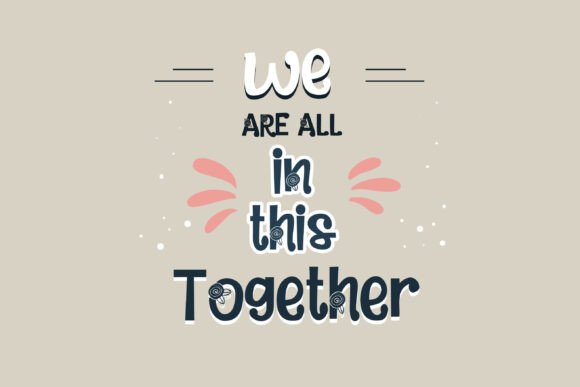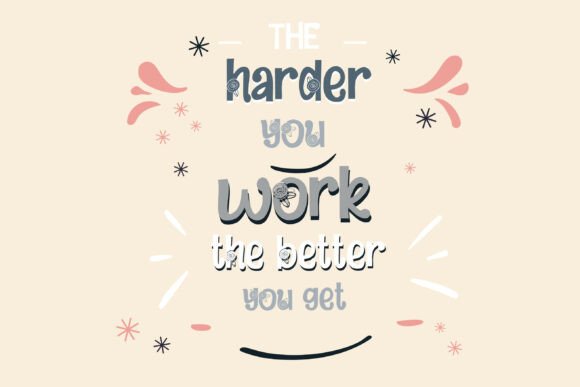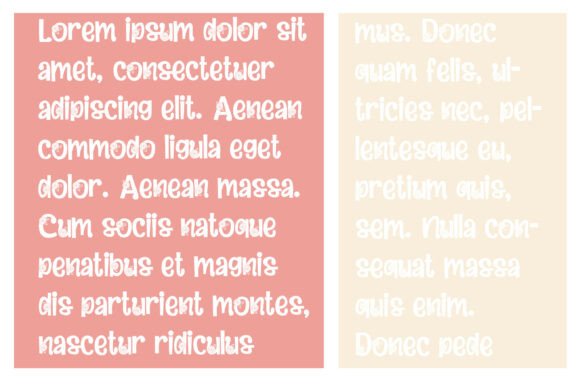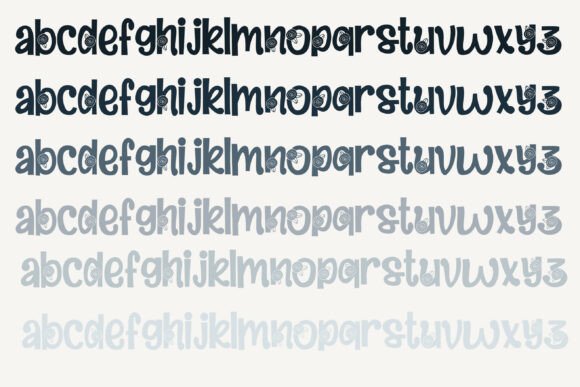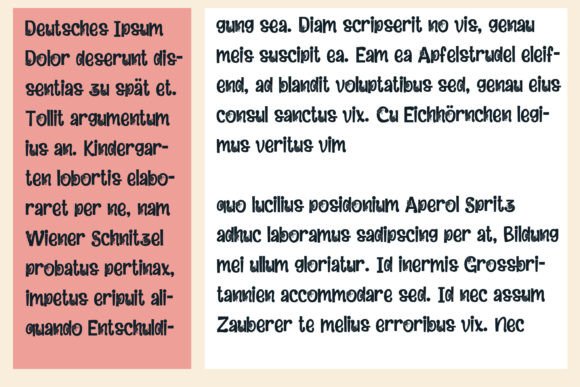
Have you ever stumbled upon a vintage flower market on a lazy Sunday afternoon, surrounded by the sweet scent of blooming roses and the soft hum of conversation? For many creatives, moments like these spark inspiration and guide their design choices. As you envision the perfect typography to match the charm of your brand, one font stands out – Carpet Roses Family Font.
This delightful “floral font” combines the elegance of hand-drawn sans-serif with the playfulness of internal rose-bud motifs. The result is a cozy-boutique aesthetic that invites approachability, artisanal charm, and a warm sense of heart. Whether you’re designing a boutique logo, packaging for handmade products, or creating casual social media headers, Carpet Roses Family Font is a valuable addition to your toolkit – offering a unique way to express your brand’s personality and connect with your audience.
Carpet Roses Family Font Key Features
- Font Family: Carpet Roses, Carpet Roses Caps, Carpet Roses Outline, Carpet Roses Shadow, Carpet Roses Shadow Caps, Carpet Roses Shadow Outline, Carpet Roses Title
- Unique Characteristics: The Carpet Roses Family Font features intricate, hand-drawn floral patterns and ornaments, making it suitable for various design applications, including wedding invitations, greeting cards, and packaging
Carpet Roses Family Font Review
I recently had the chance to work with the Carpet Roses Family Font, and I must say it’s a mixed bag. Here’s my honest review.
- Unique style**: Carpet Roses Family Font has a distinct, whimsical feel that’s perfect for adding a touch of elegance to your designs.
- Wide range of weights**: The font comes in a variety of weights, from light to bold, making it easy to customize your design to suit your needs.
- Excellent legibility**: Despite its ornate design, Carpet Roses Family Font is surprisingly easy to read, even at smaller font sizes.
- Limited language support**: Carpet Roses Family Font only supports a limited number of languages, which may be a concern for designers who work with non-English clients.
- Not ideal for body text**: While the font is perfect for headlines and titles, it’s not the best choice for body text due to its ornate design.
Overall, Carpet Roses Family Font is a great choice for designers who want to add a touch of elegance to their designs. However, its limitations may make it less suitable for certain projects. With some careful planning and customization, though, it can be a great addition to your design toolkit.
For the best results, use the Carpet Roses Family Font for titles, headings, and emphasis in your designs.
Common use cases include wedding invitations, baby shower invitations, and other special occasion designs.
Alternatives to Carpet Roses Family Font
The Carpet Roses Family Font is a beautiful script font, but sometimes designers may need alternatives that offer similar styles or unique characteristics. Here are a few options:
Carolyna Pro is a elegant and sophisticated script font designed for luxury branding, weddings, and high-end invitations. It features a classic, vintage feel with a modern twist. Compared to Carpet Roses Family Font, Carolyna Pro has a more refined and polished look, making it suitable for high-end designs.